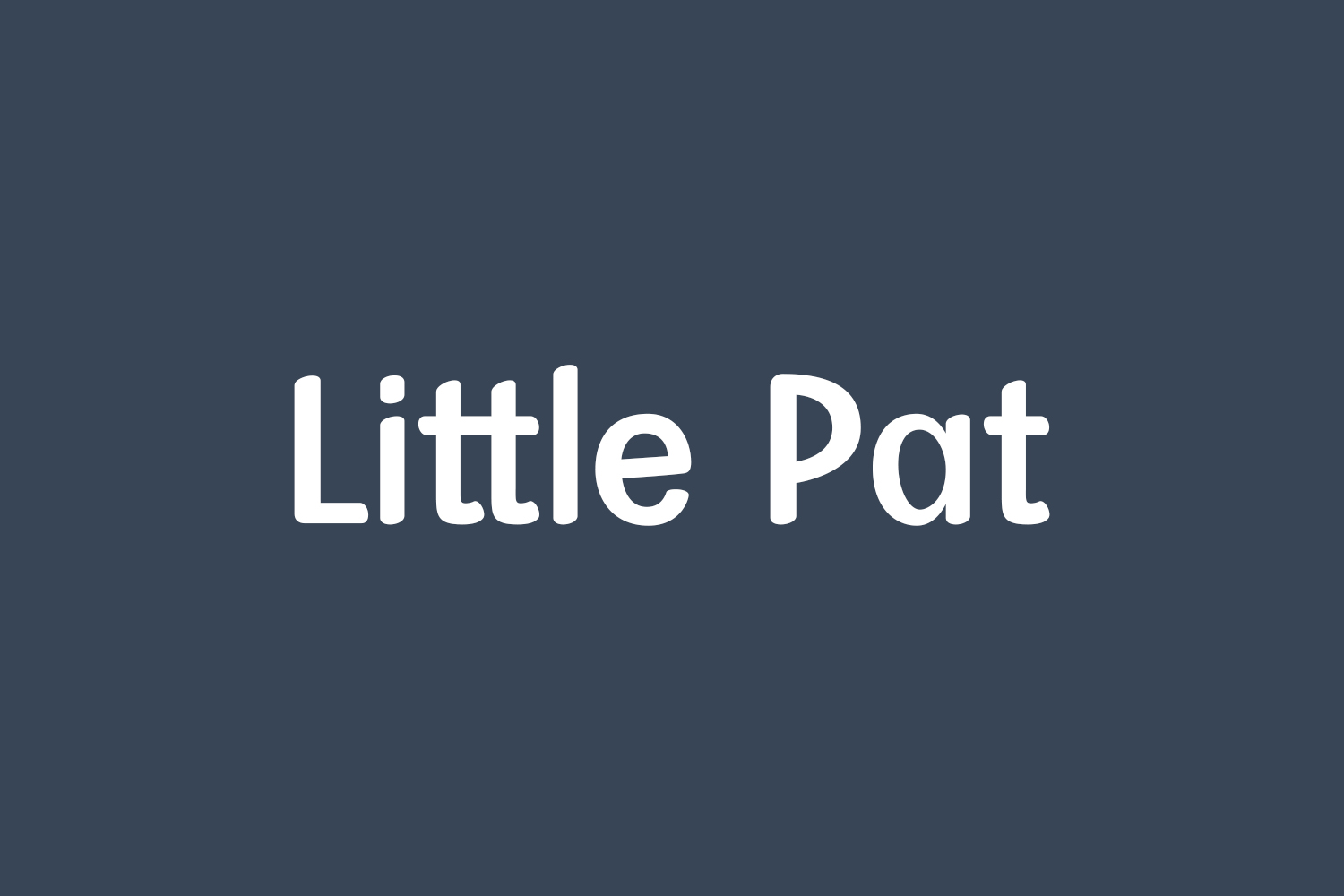
Little Pat Free Font is a simple and adaptable display font. It will elevate a wide range of crafting ideas, from cards to branding, labels, and much more.
Add it confidently to your favorite creations and let yourself be amazed by the outcome generated. Little Pat Free Font was designed by Sawarna Studio and is free for personal use only. Please purchase the full version for commercial use.